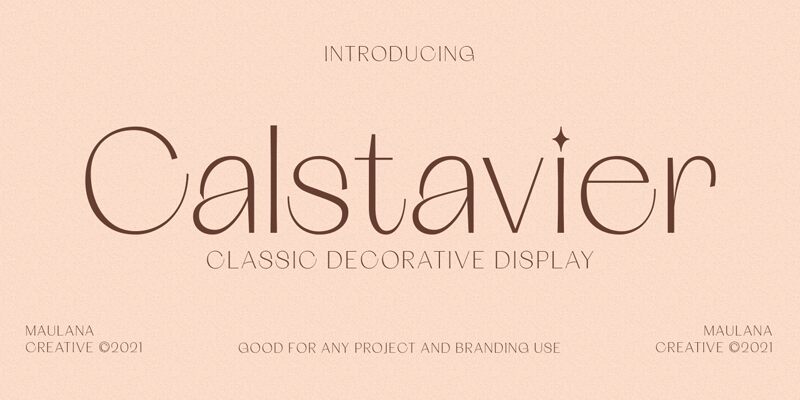
Introducing Calstavier, a classic sans serif font created by Maulana Creative. Its thin weight adds a touch of sophistication to any project, making it perfect for branding, logos and headlines. Calstavier is also great for digital content and web design.